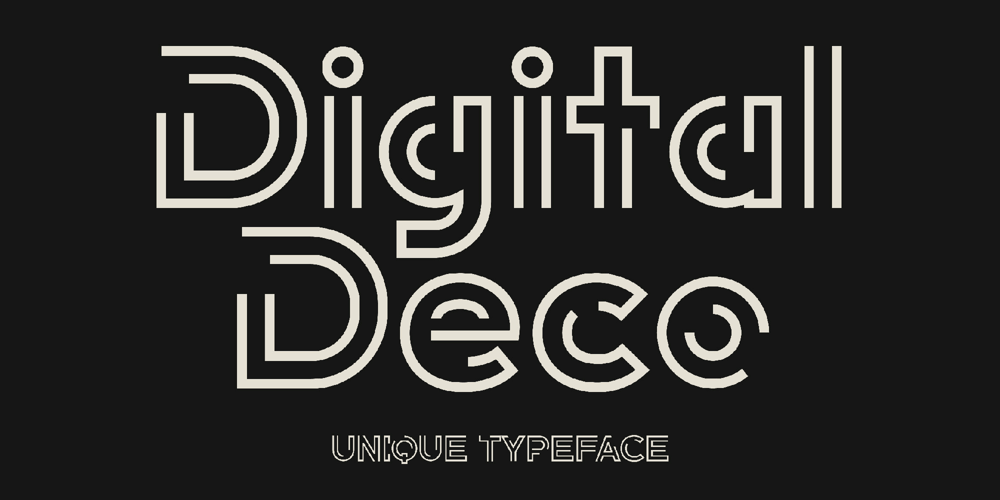
Digital Deco
Digital Deco font
Digital Deco Font Family was designed by Igor Ovsyannykov and published by Hipfonts. Digital Deco contains 1 styles and family package options. Perfect for creating logos and branding materials, Digital Deco exudes a sense of sophistication and elegance, while its unique negative space elements add an intriguing visual complexity. This makes it particularly effective for businesses looking to combine a vintage charm with a modern, cutting-edge appearance.The font’s versatile nature allows it to be used in a wide range of applications, from digital media to print, making it an essential tool for designers aiming to infuse their work with a timeless yet contemporary aesthetic. Digital Deco is more than just a typeface; it’s a bridge between eras, capturing the essence of Art Deco’s luxury and combining it with the minimalism and efficiency of modern design.